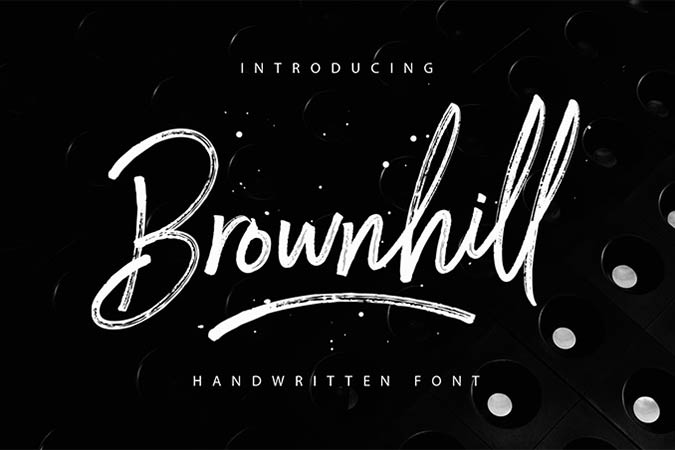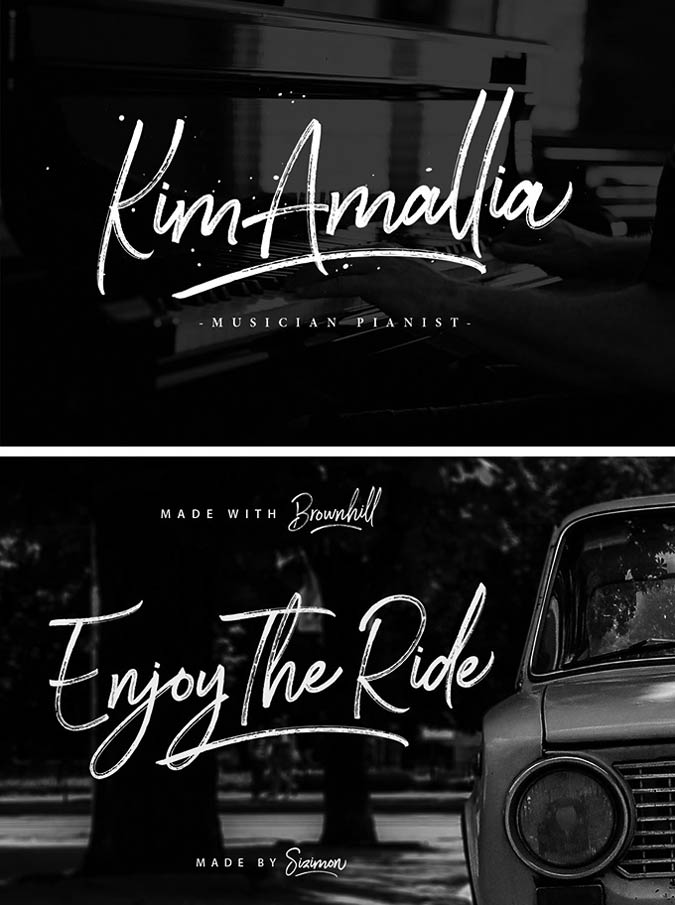
Brownhill Script is a astonishing beautiful handcrafted script free font. The strokes of the font are very elegantly expressed with natural flow of handwriting. Personally I love the textures of the font very much. It comes with an extra font containing the swashes to complement the main font.
This font is versatile and can be applied to many design outcomes like t-shirts, posters, name cards, wedding invitations and so much more.
- Designer: Faisal Tanjung
- Styles: 3
- Category: Calligraphy/Brush, Script